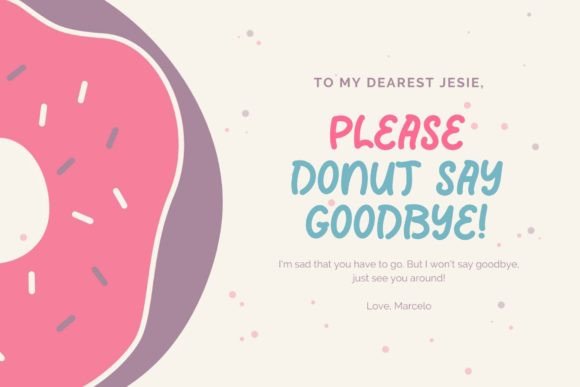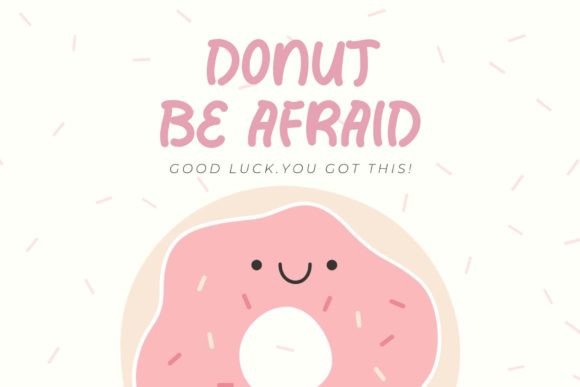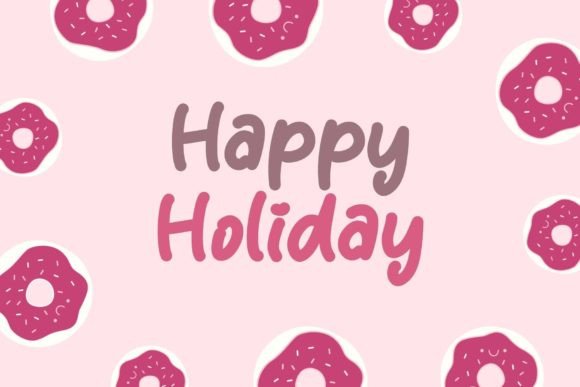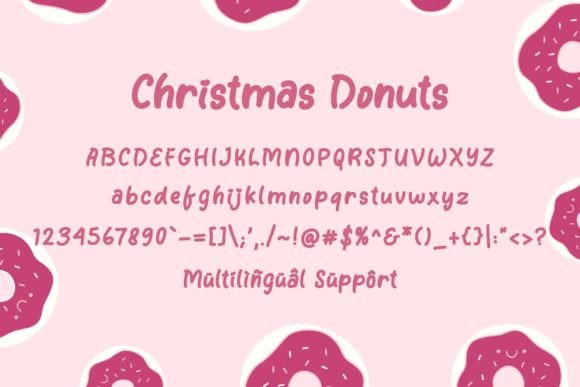
Introduction to Christmas Donuts Font
As I’m browsing through my design resource library, I stumble upon a font that instantly brings a smile to my face – the Christmas Donuts Font. Its adorable design makes me reminisce about the joy of decorating the Christmas tree with my family. This font is more than just a design element; it’s a key to unlocking the magic of the holiday season.
With its cute display style, the Christmas Donuts Font is perfect for adding a touch of whimsy to any creative project. Whether you’re designing Christmas cards, Valentine’s Day invitations, or winter-themed logos, this font is sure to bring a smile to your audience’s faces. Its versatility and high-quality design make it a valuable asset for designers looking to elevate their work.
Key Features of Christmas Donuts Font
- Free high-quality design resource perfect for creative projects, especially during the holiday season.
- Unique, playful, and festive font ideal for Christmas and winter-themed designs, advertisements, and social media graphics.
- Comes with a transparent background, allowing for easy integration into various design elements and backgrounds.
- Perfect for designers and artists looking for a fun and creative way to add a touch of holiday cheer to their designs.
- Easy to use and customize, making it an excellent choice for designers of all skill levels.
Honest Review: Christmas Donuts Font
I recently had the chance to experiment with the Christmas Donuts Font, and I must say it’s a delightful addition to any design project. This free download is perfect for those looking for a fun and playful touch to their creative project.
- ✨ The font’s whimsical design makes it perfect for festive occasions like Christmas or other holiday-themed projects.
- ✨ The transparent background option gives designers the flexibility to use the font in a variety of design settings.
- ⚠️ The font may not be suitable for professional or formal projects, as it has a somewhat casual tone.
- ⚠️ The free version may not be as high quality as some of the paid alternatives, although it still looks great for most design needs.
Overall, I’m impressed with the Christmas Donuts Font’s potential and versatility. With its playful design and free download option, it’s an excellent resource for designers working on creative projects. While it may not be perfect for every situation, it’s definitely worth adding to your design arsenal.
The Christmas Donuts Font is perfect for use in holiday-themed designs, such as Christmas cards, gift tags, and social media posts. It’s also great for use in food and beverage branding, such as donut shops and bakeries.